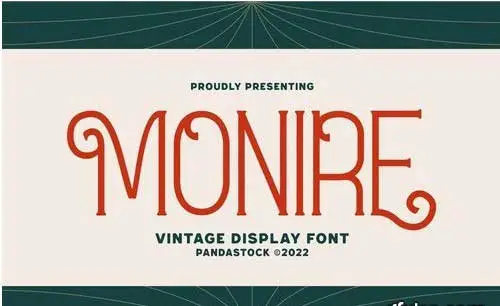
Monire – Creative Vintage Font is a delightful digital download that instantly adds a charming retro touch to your creative endeavors! This unique typeface is perfect for branding, packaging, logos, posters, invitations, and social media graphics, all while maintaining a nostalgic vibe with modern usability. 🌟
With its elegant vintage style and creative flair, Monire is designed to inspire your artistic vision. Whether you’re crafting a stunning visual for a client or personal project, this font will surely make your work stand out! ✨
- Elegant vintage style: Infuse your designs with a classic touch that captivates and charms.
- Complete character set: Includes uppercase and lowercase letters, numbers, and punctuation for versatile use.
- Professional and artistic designs: Ideal for any project, from sophisticated branding to playful invitations.
Monire is a fantastic choice for graphic designers, branding experts, and anyone looking to add a vintage creative font to their toolkit. Whether you’re working on a retro-themed project or simply want to give your designs a unique flair, this font is sure to impress! 🎉
Bring an authentic vintage flair to your digital or print designs with Monire – Creative Vintage Font. Perfect for modern vintage fonts enthusiasts! 🌈